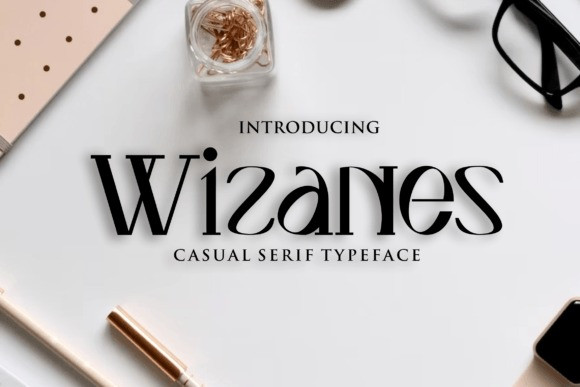
Wizanes Font
Wizanes Font is a bold serif font that feels beautiful, classy, elegant, and modern. This font is perfectly suited for a wide variety of projects, such as signature, stationery, logo, wedding, typography quotes, magazine or book cover, website header, clothing, branding, packaging design, and more.